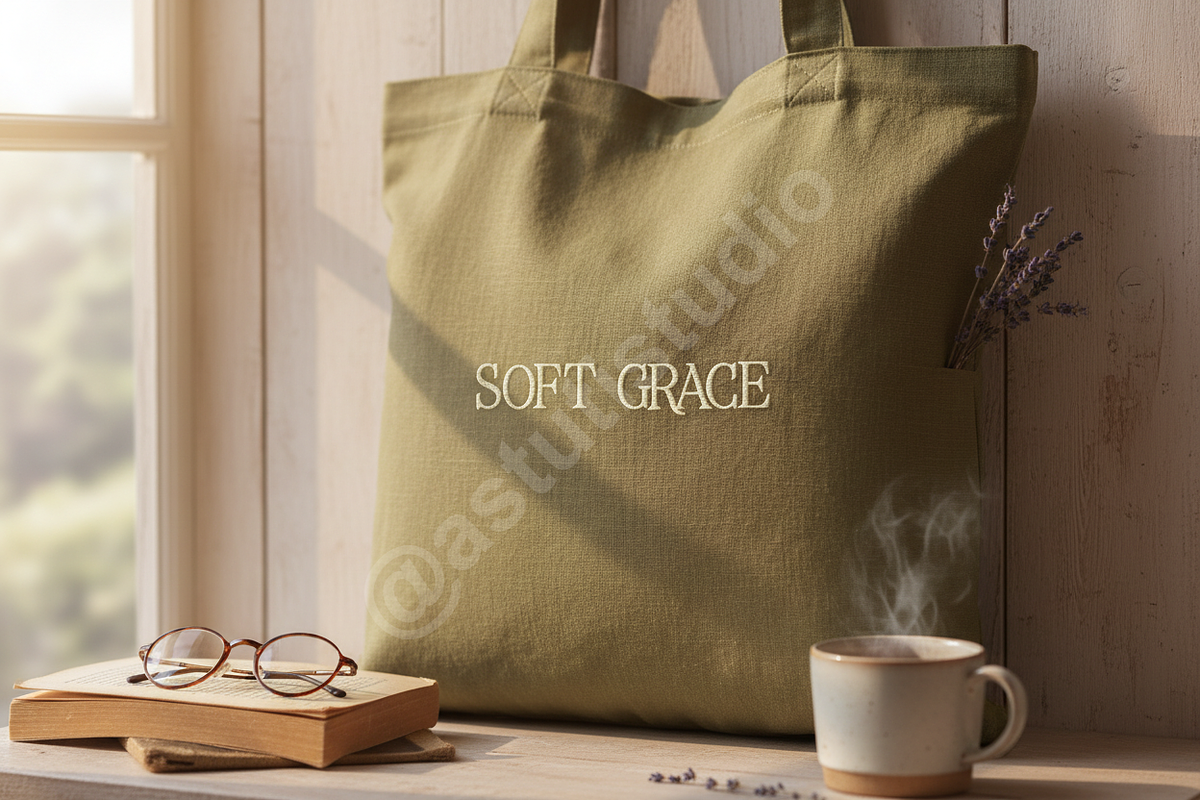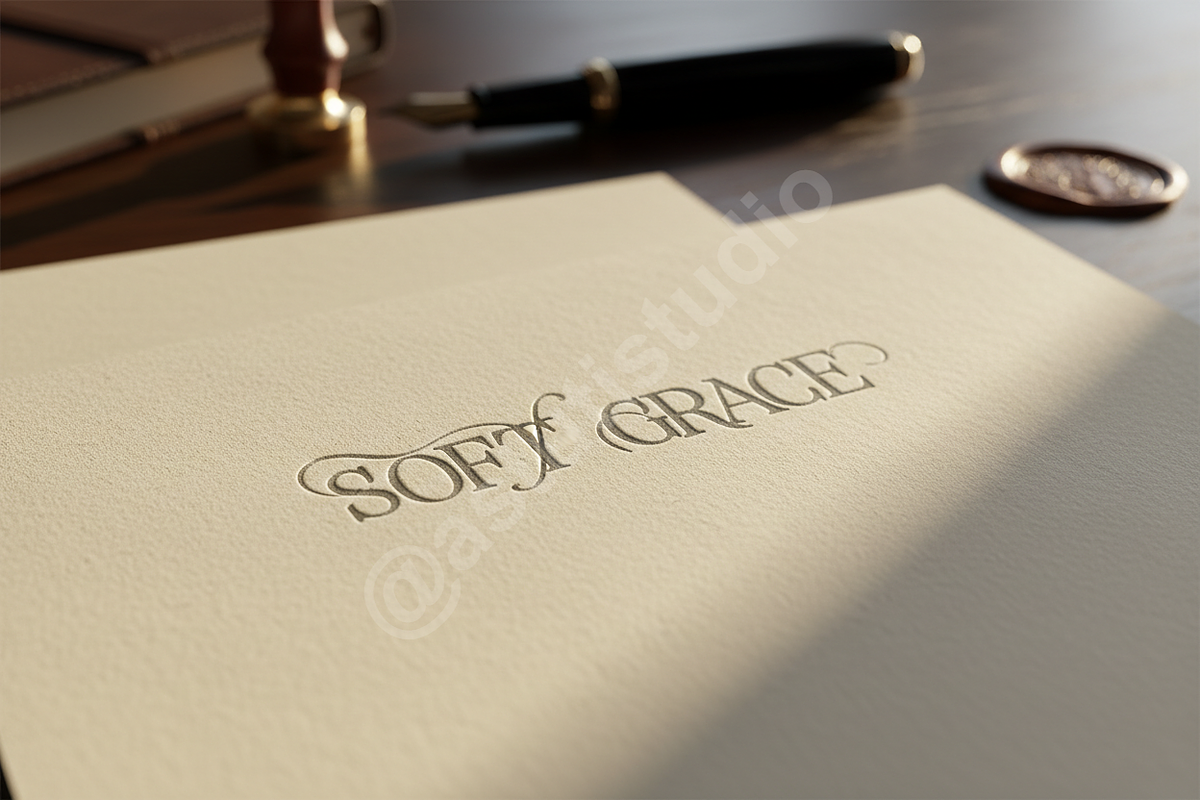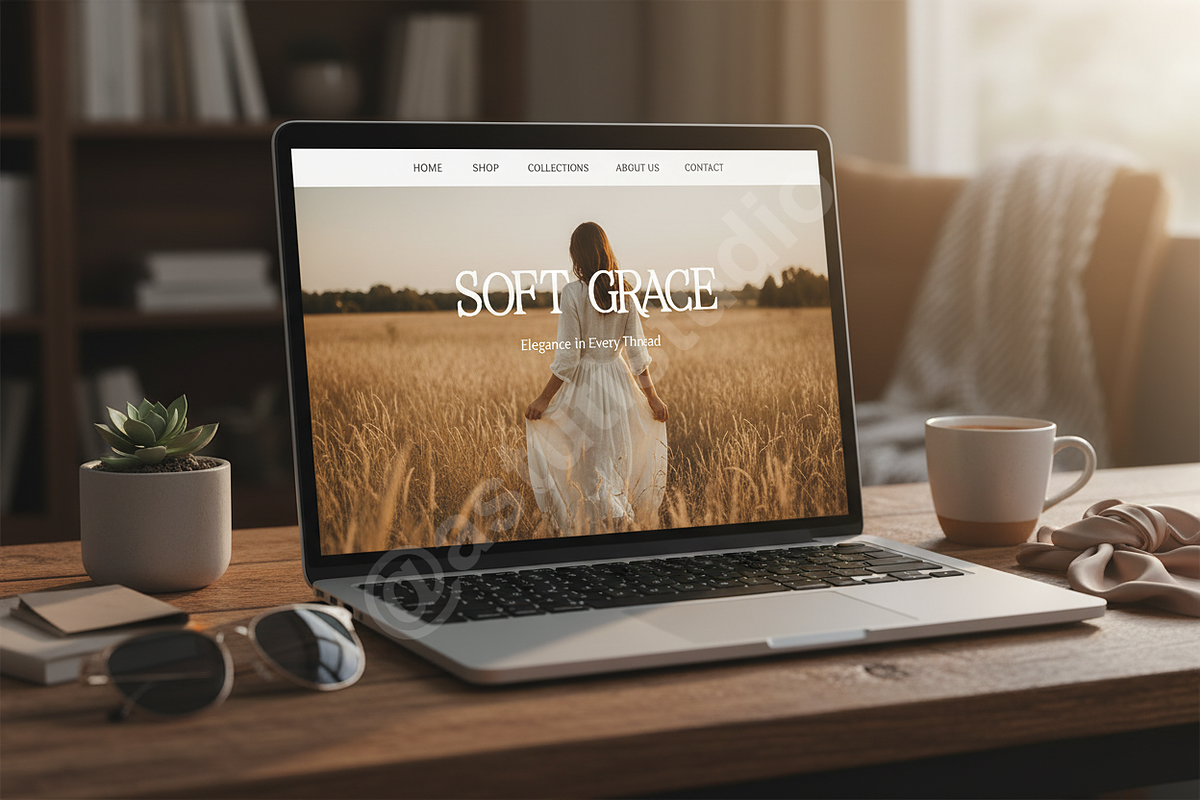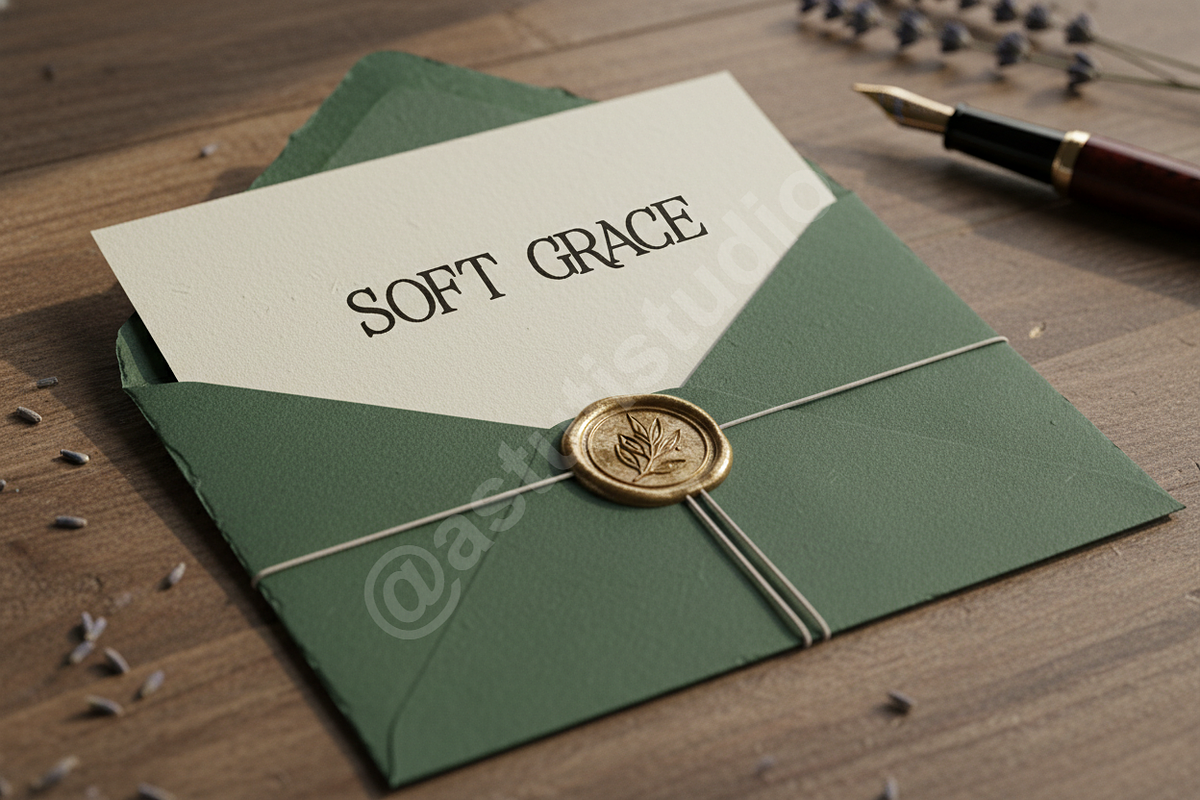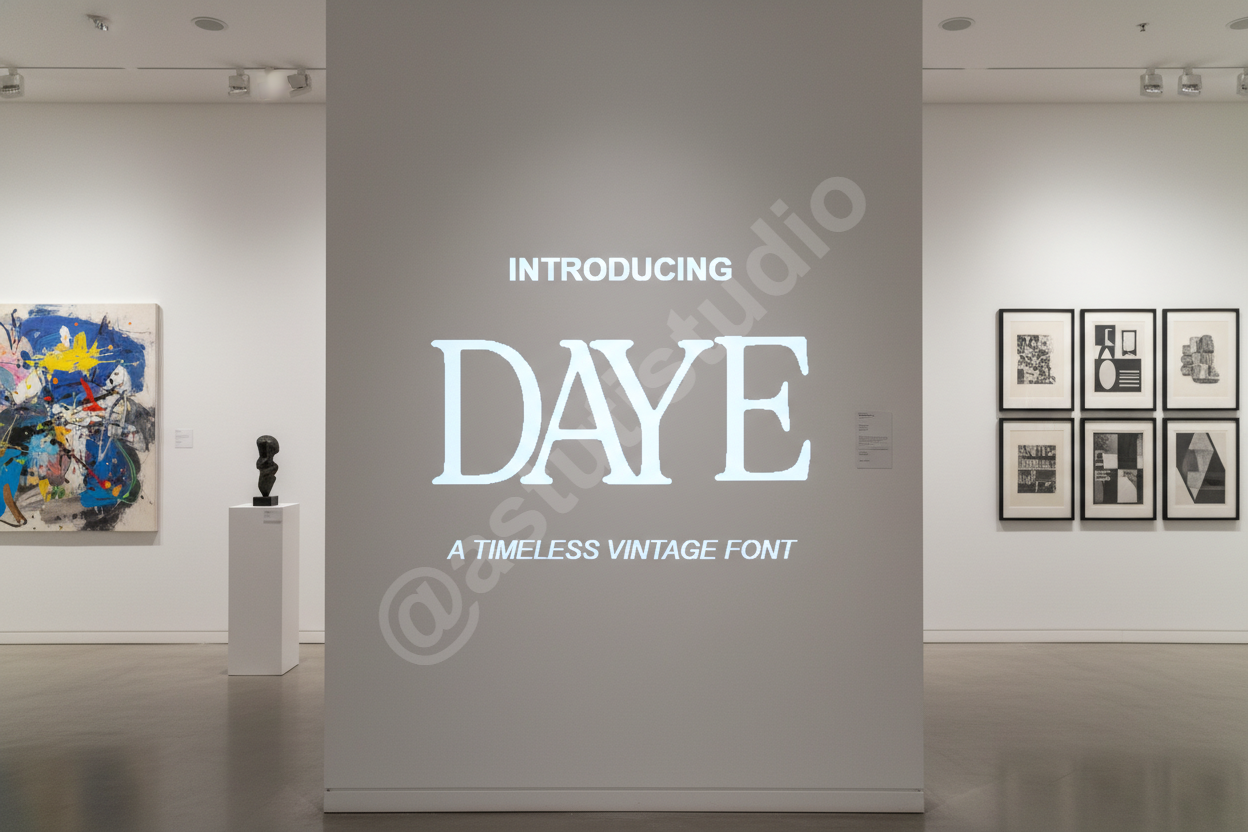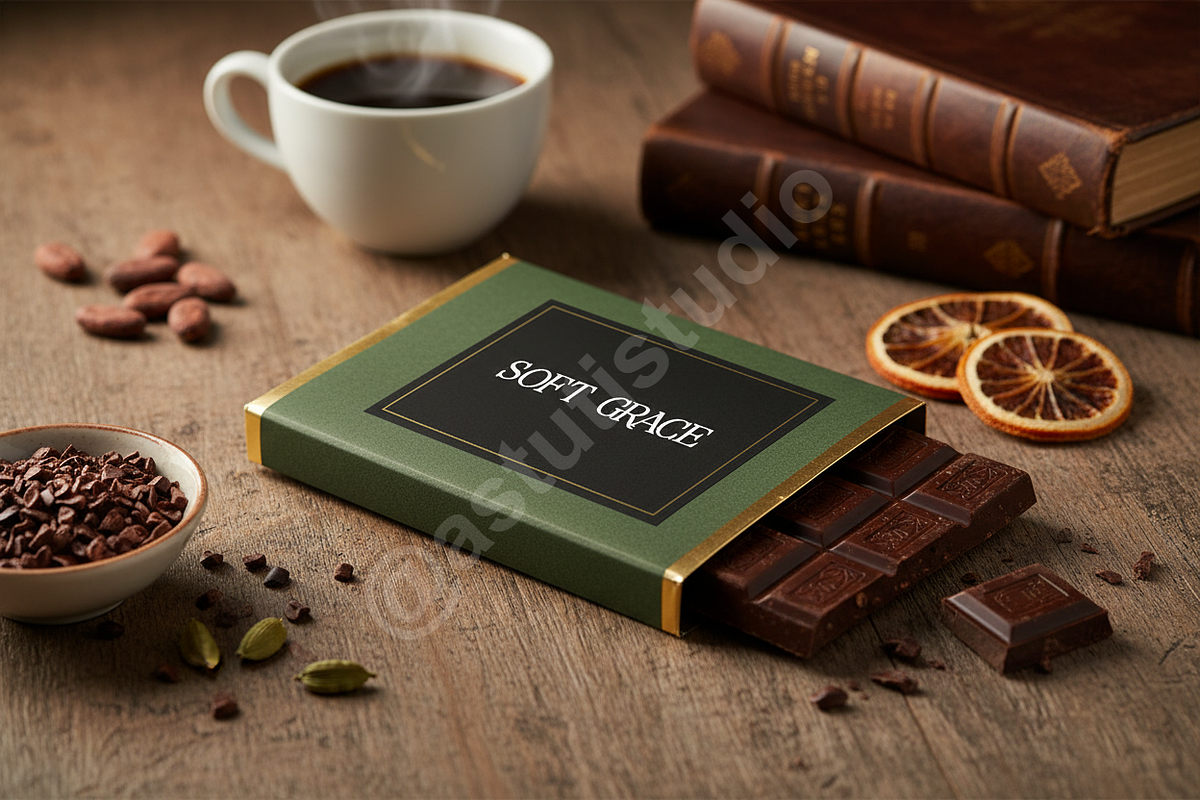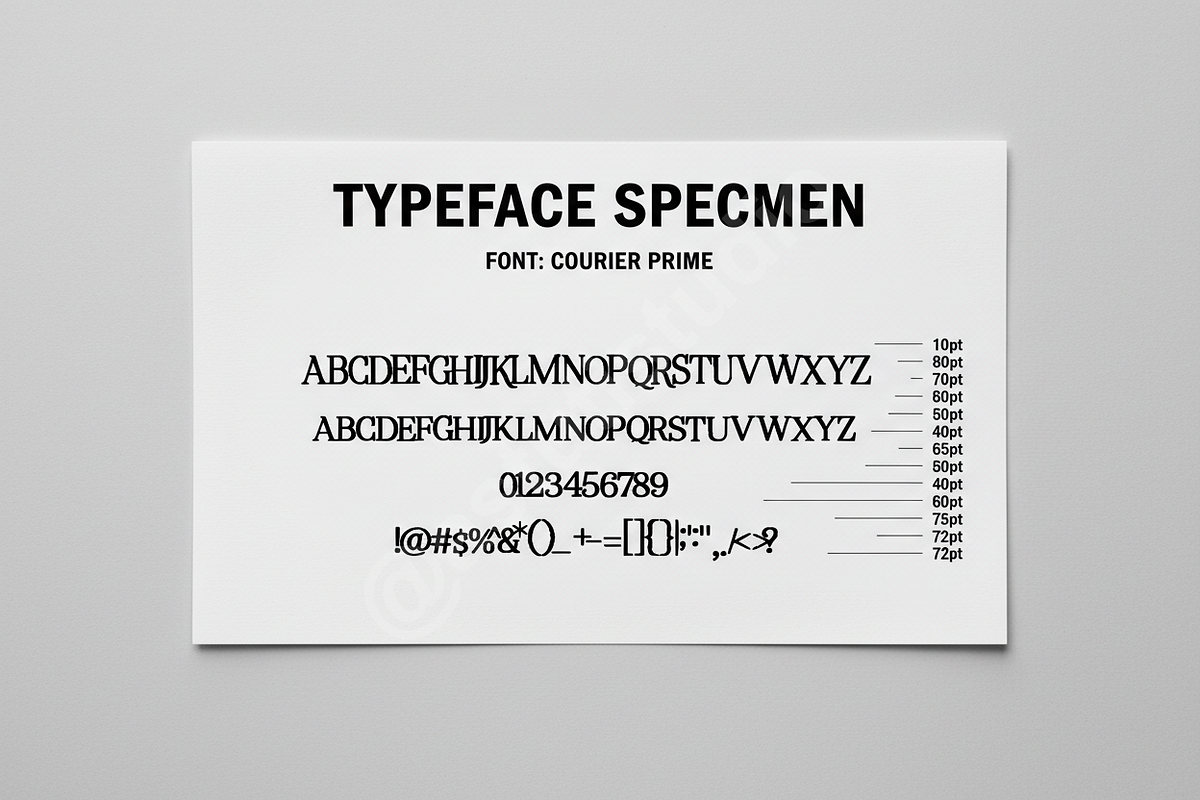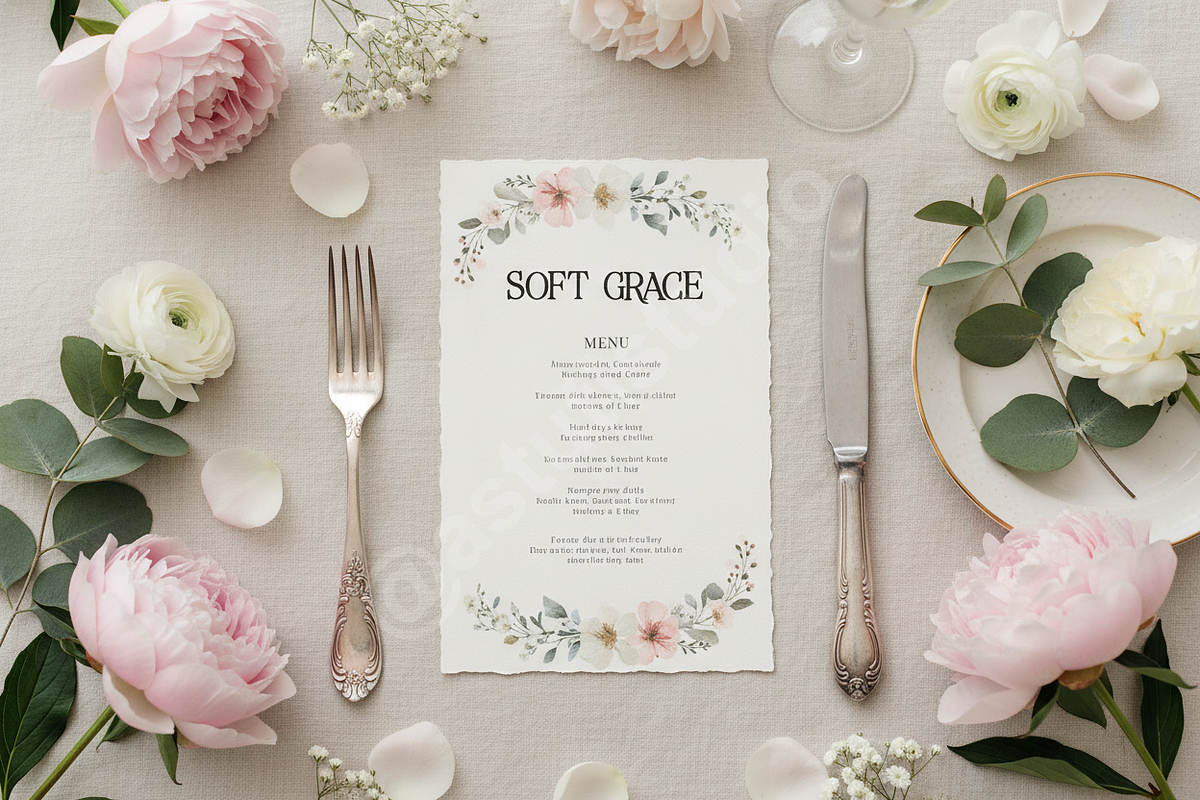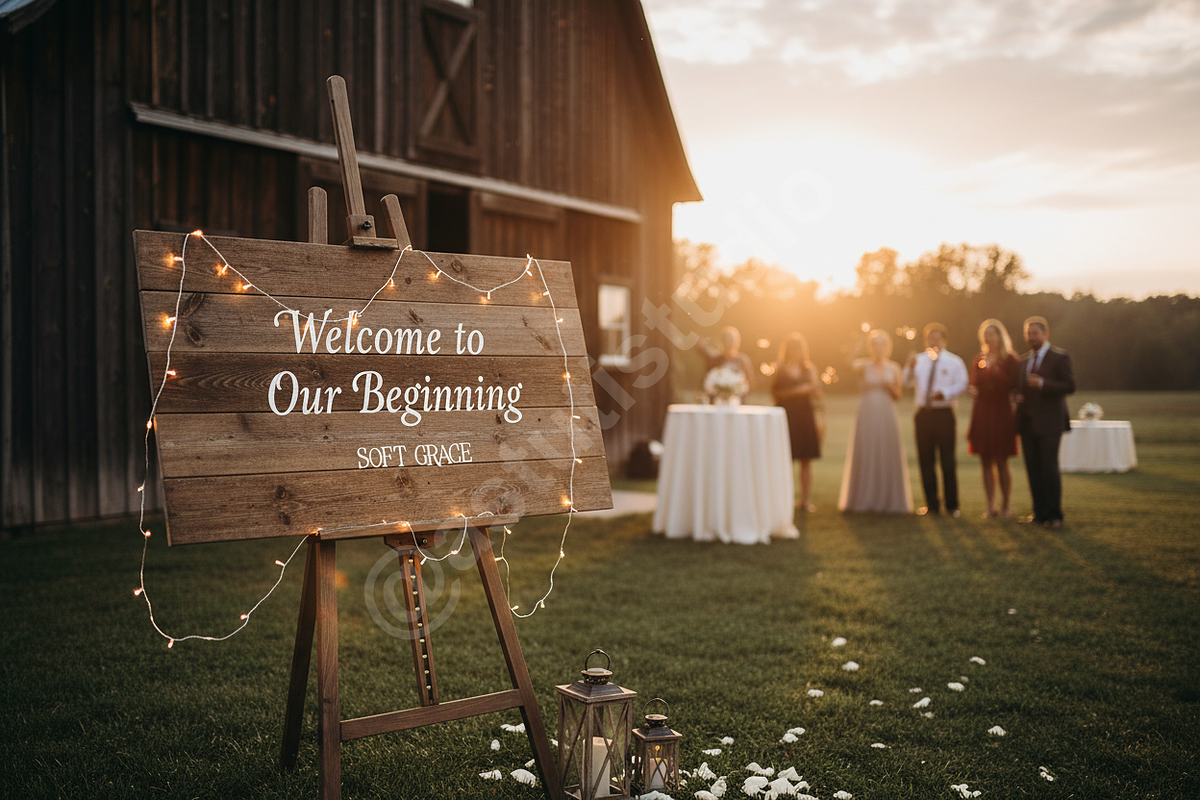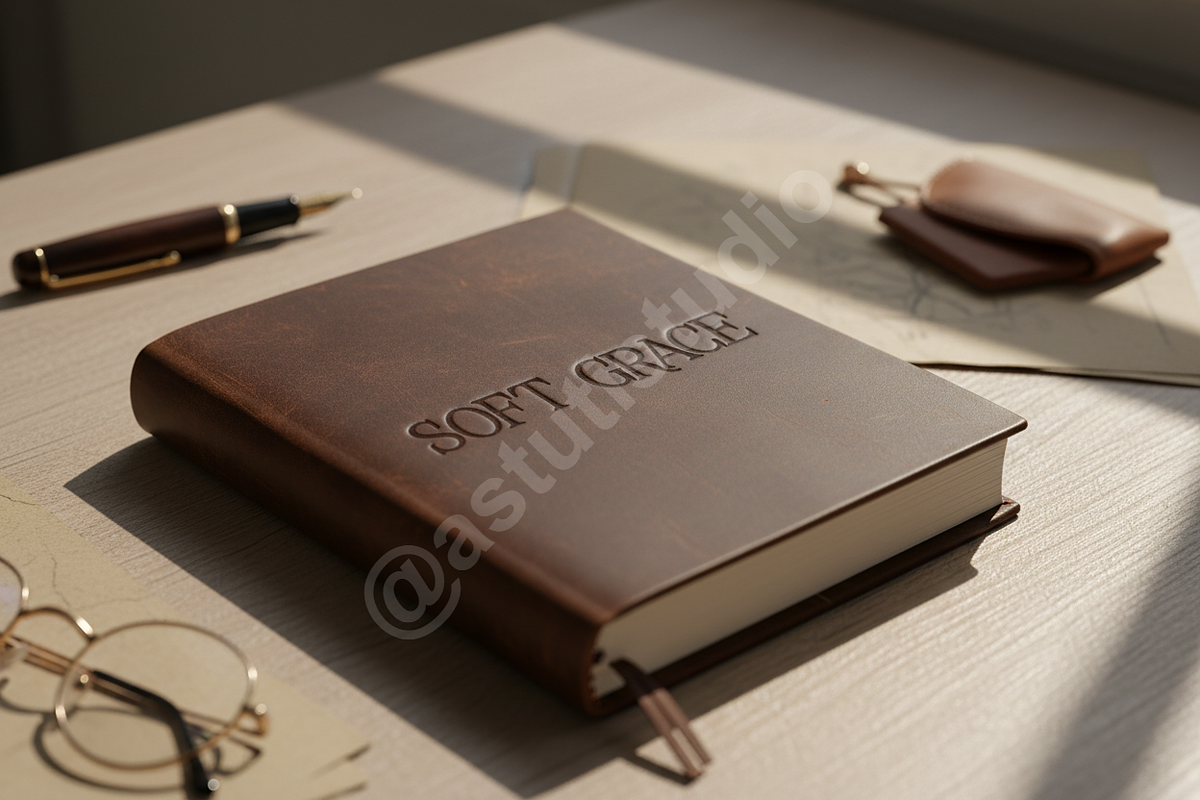
Daye Typeface: Modern Elegance for P
INTRODUCTION: DAYE is an exquisitely crafted modern serif typeface designed for the discerning creative. Balancing classic refinement with contemporary clean lines, Daye offers instant sophistication to any project. It is the definitive choice for luxury branding, high-fashion editorial layouts, high-end packaging, and impactful, elegant social media campaigns.
Daye is built to convey quality and trustworthiness, making it the perfect typographical cornerstone for premium brands seeking a timeless yet fresh aesthetic.
KEY FEATURES:
- Elegant, high-contrast letterforms ensuring maximum impact and readability.
- Full set of Uppercase and Lowercase characters.
- Extensive multilingual support (Latin Extended).
- Complete array of punctuation, numerals, and sophisticated ligatures.
- Optimized for both commanding headlines and refined body text usage.